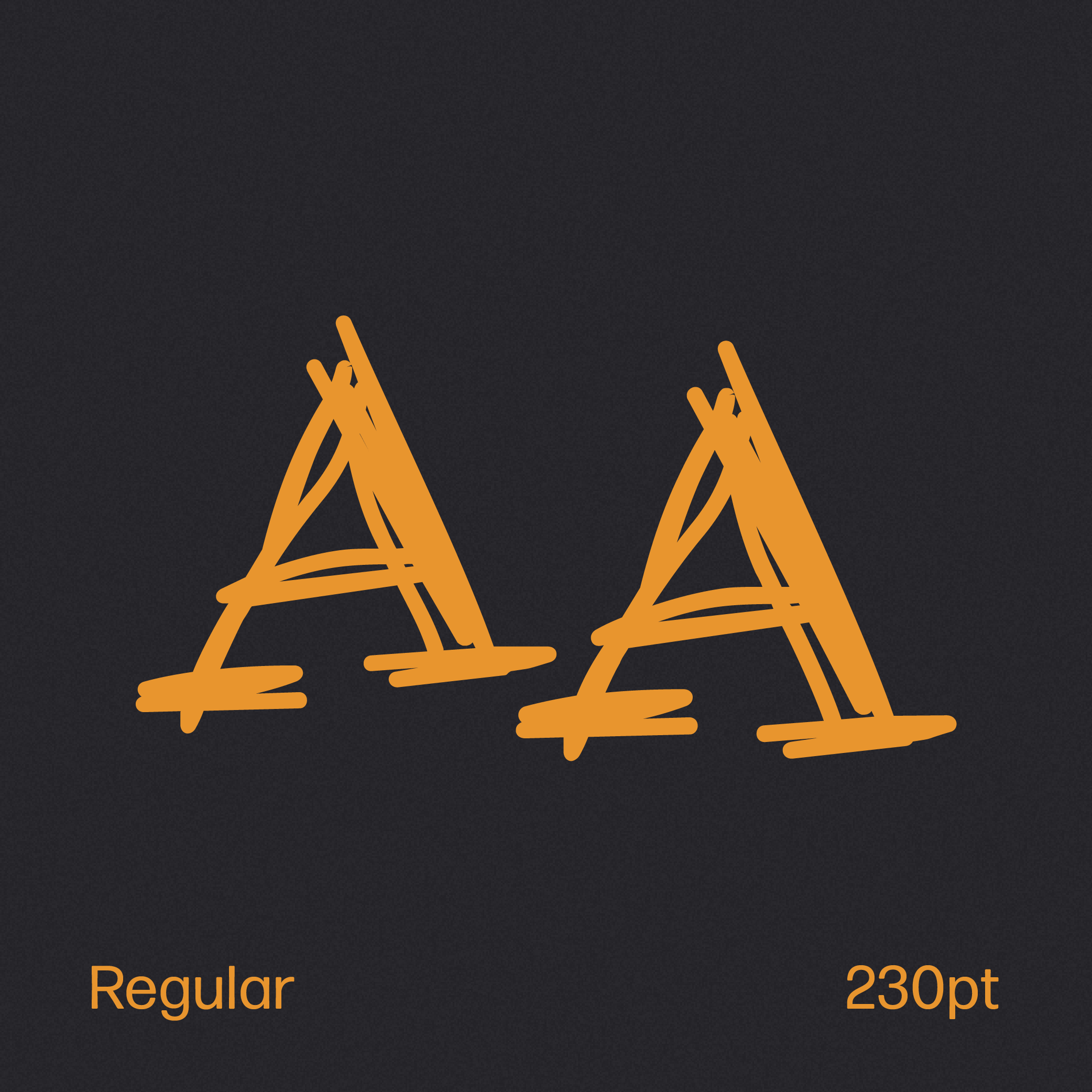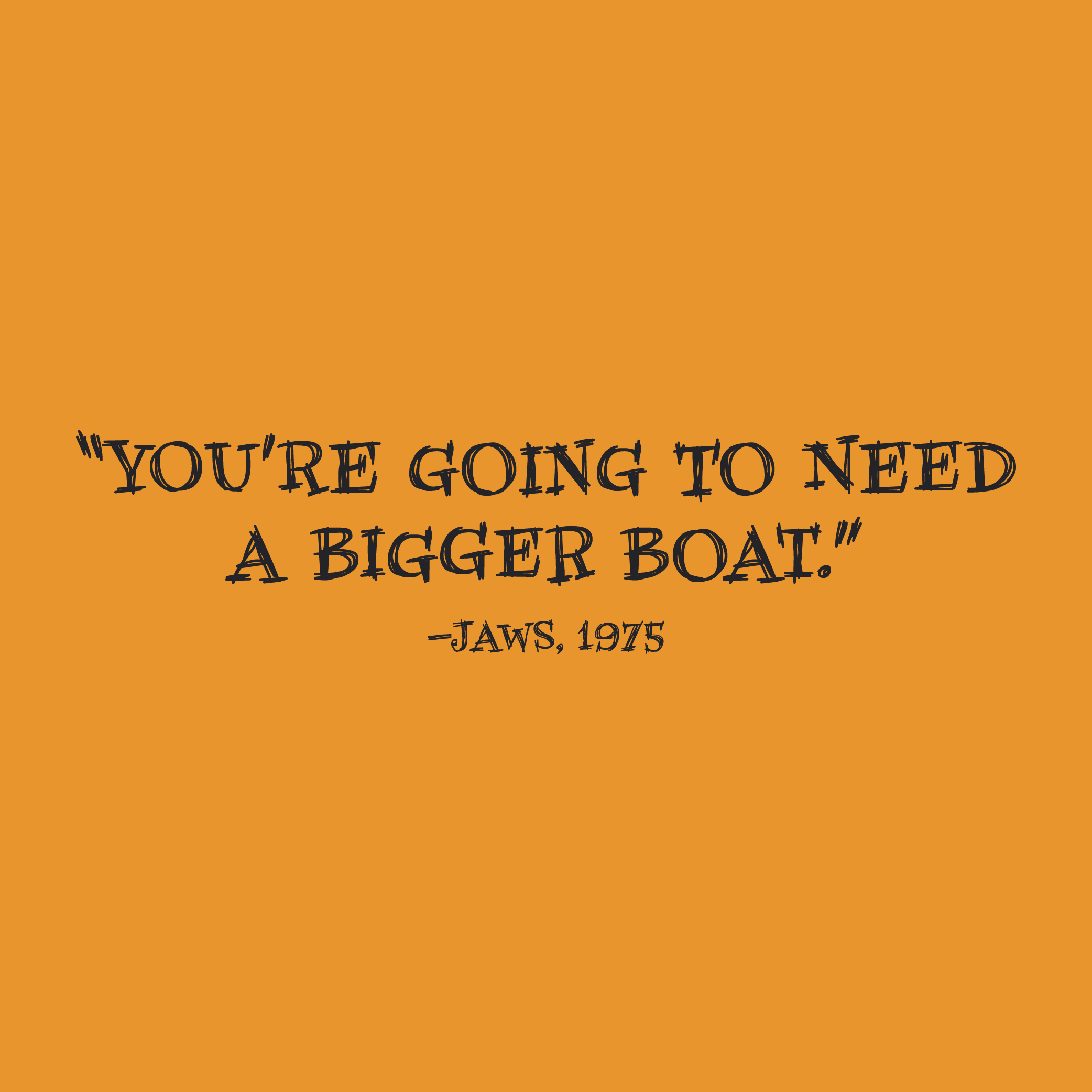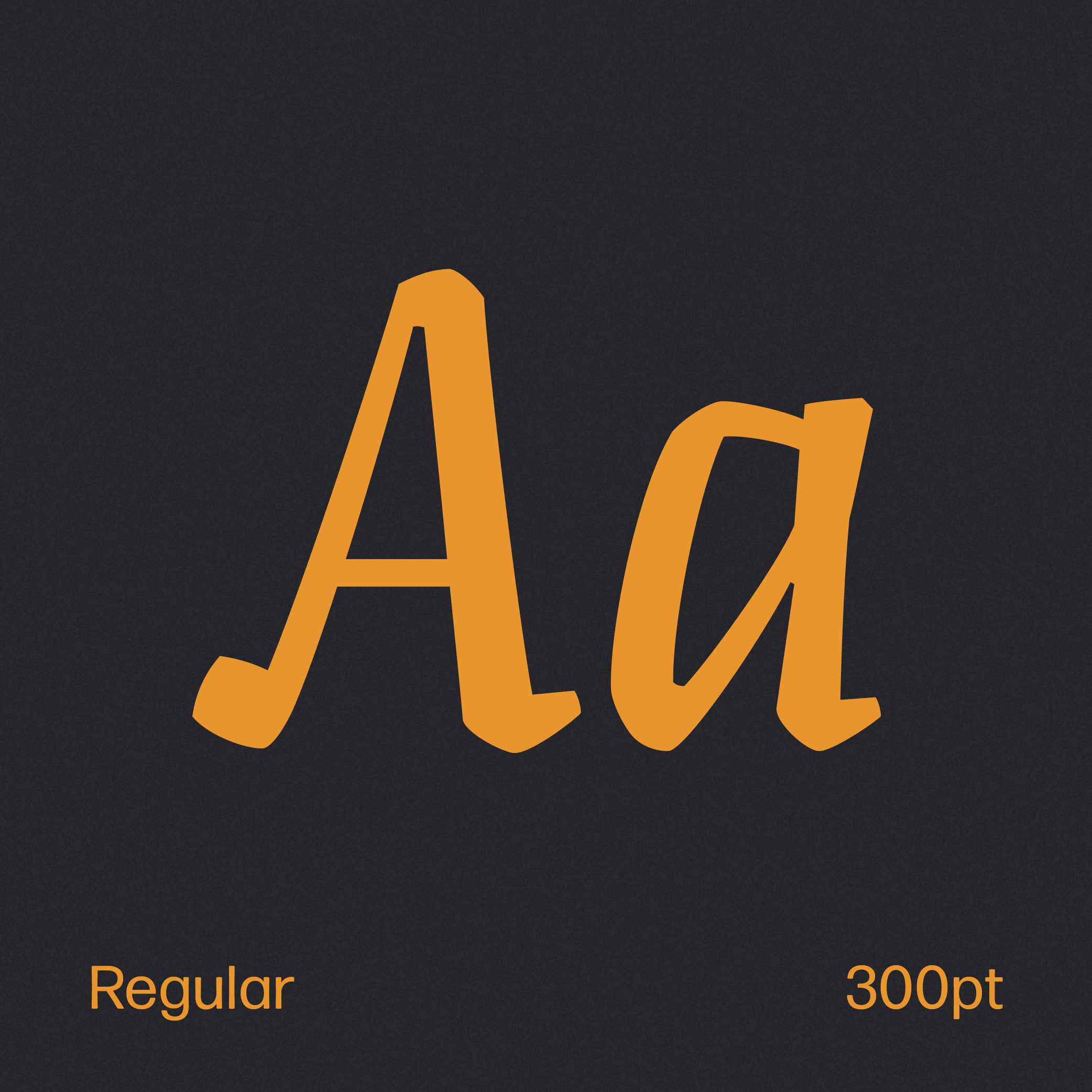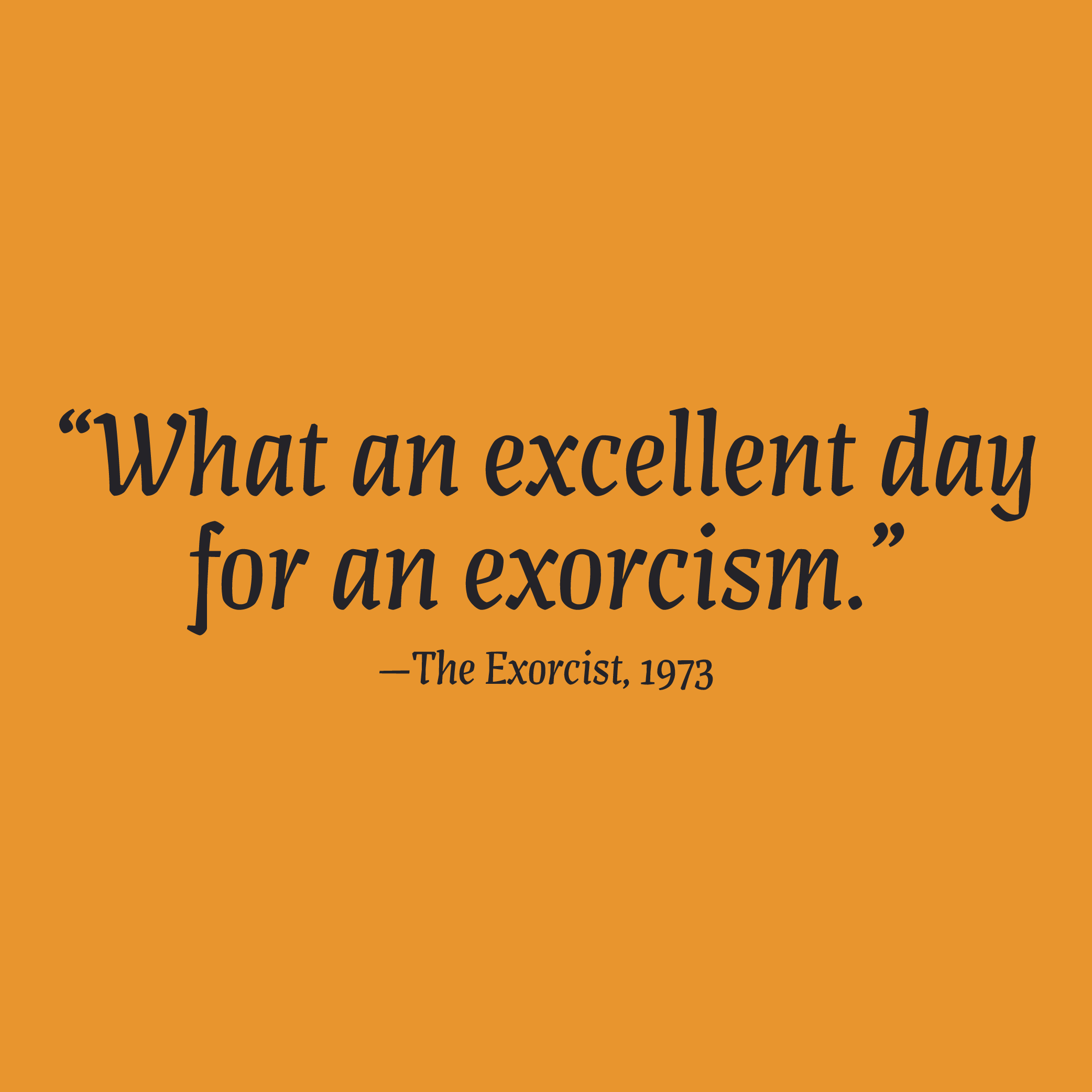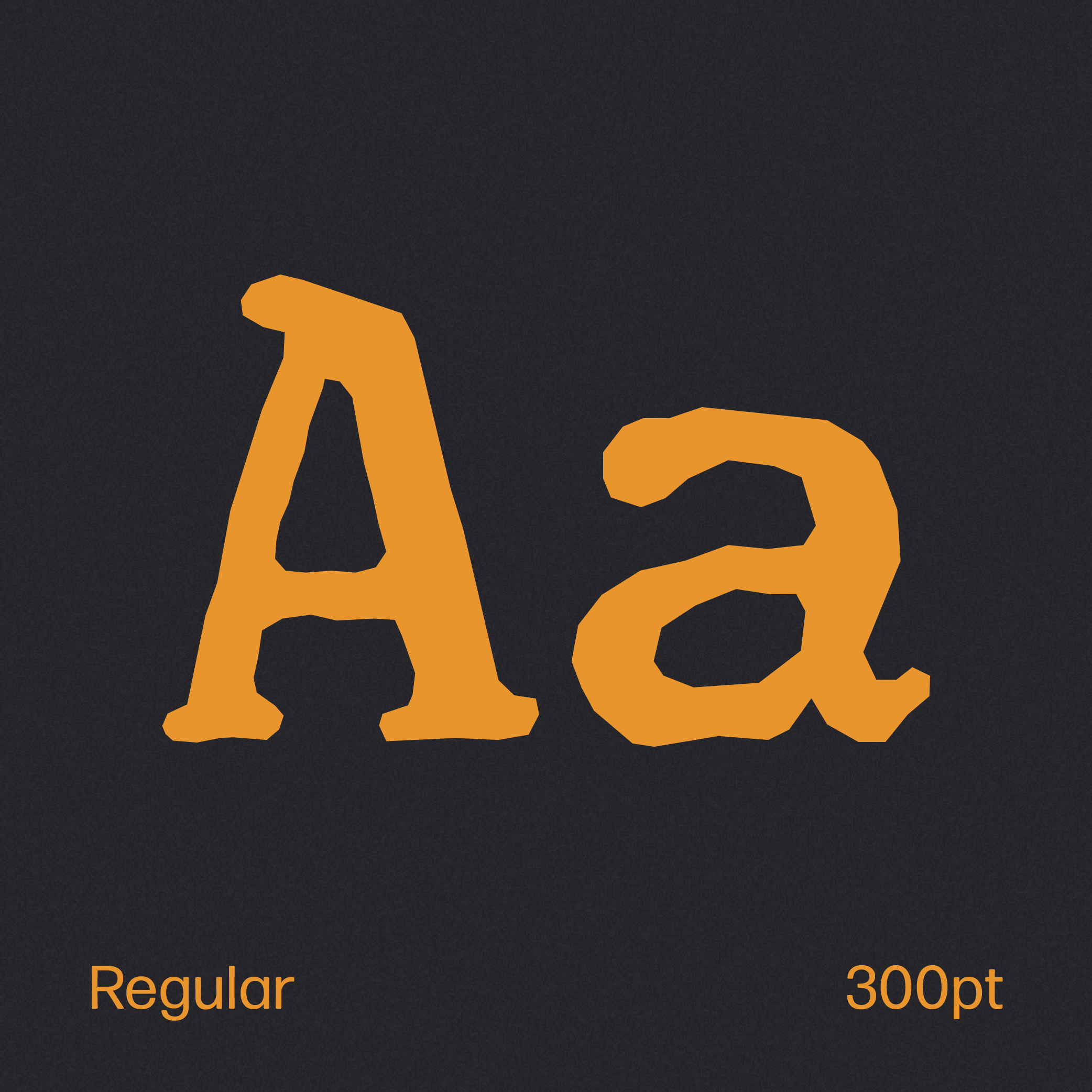
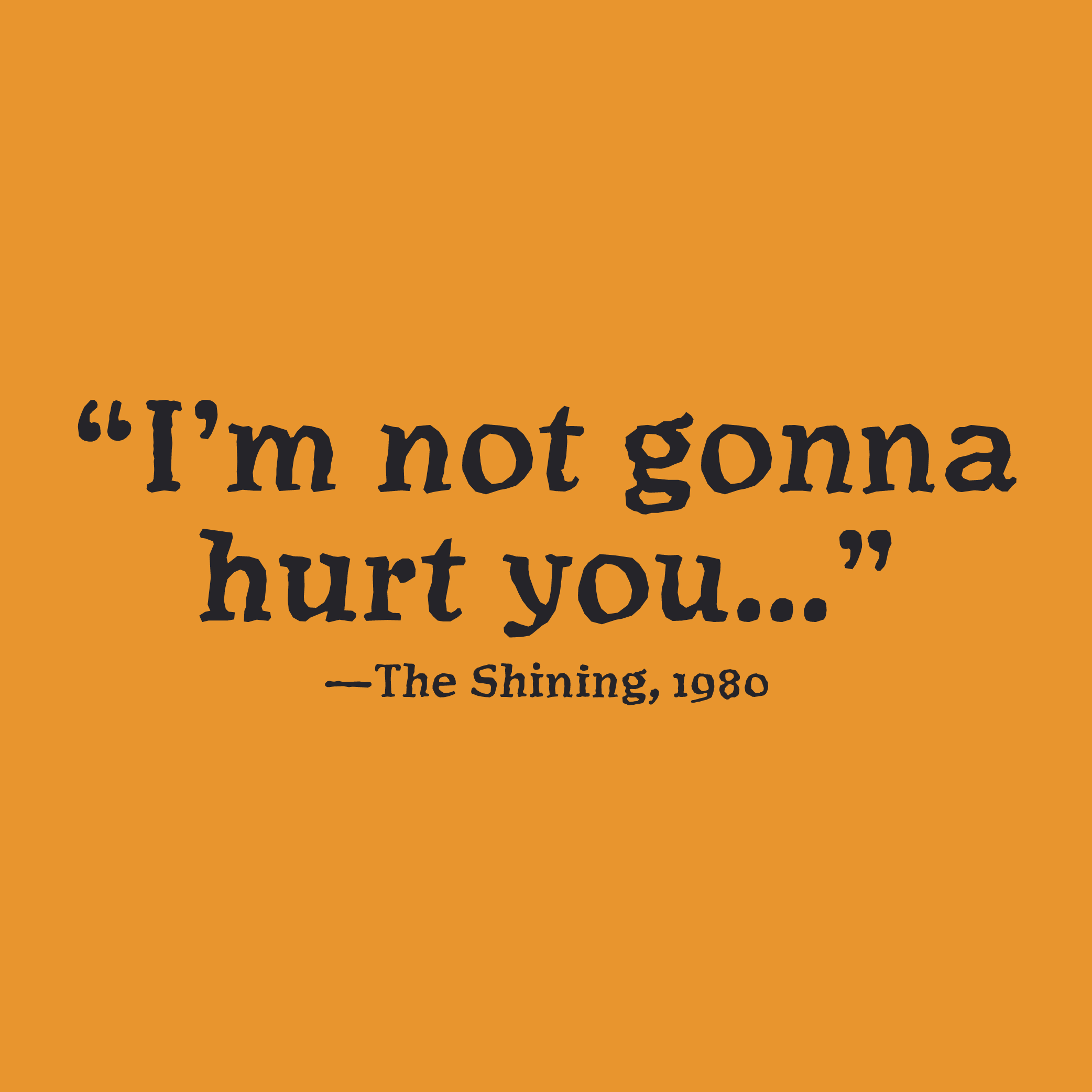
In 1996, three student letterers went into the forest looking for the mysterious fonts used to letter Spawn: Blood & Shadows.
They never returned. A year later, their fonts were found.
The woodcuts of Czech artist Vojtech Preissig inspired Czeska. The spirit of the handmade strokes is reflected in the alphabet, where imperfection is a virtue, providing the vigour and graphic power of the unique and unrepeatable.
Each stem and contour reveals a vivid wood texture. This vitality creates a rhythm that, while unconventional, maintains legibility.
Artigo Display came about as an exploration of the Artigo text typeface. Artigo Display reimagines the beauty of handwriting shapes in a display version of the italic.
It is an expressive and retro style. It has five weights that bring flexibility to this display family.